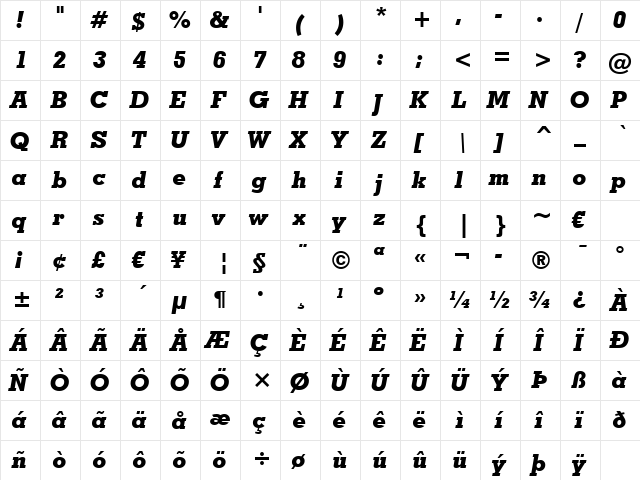
GeoSlab703 XBdIt BT Extra Bold Italic Font Preview
| Style | Extra Bold Italic |
Design Context for GeoSlab703 XBdIt BT Typeface
GeoSlab703 XBdIt BT combines the readability of serif typography with the visual weight of a slab construction, resulting in a typeface that feels both authoritative and approachable. The slanted form adds forward momentum and visual energy. Its bold stroke weight gives it real presence on the page.
Works well in editorial design, news publishing, impactful branding, and poster typography.
Pro Tip: Try GeoSlab703 XBdIt BT set tight in headlines for a classic editorial feel. Its slab serifs create strong horizontal rhythm that anchors a page layout.